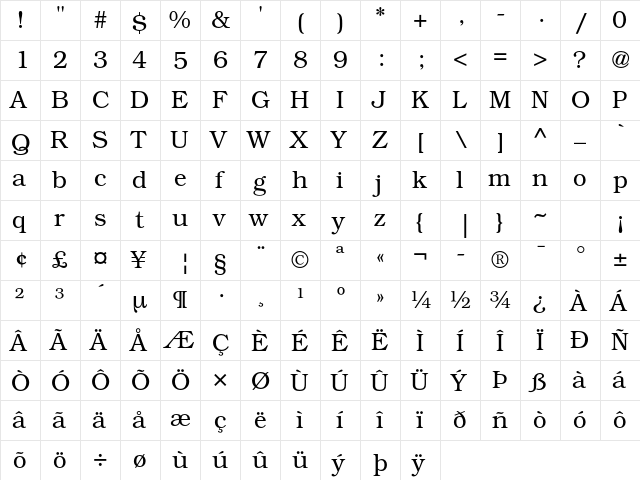
ITC Bookman Std Light
| Designer | Ed Benguiat |
Design Context for ITC Bookman Std Typeface
ITC Bookman Std takes a measured approach to typography — its balanced proportions and neutral character make it a reliable workhorse for both digital and print work. Its slender proportions lend an understated elegance to any composition.